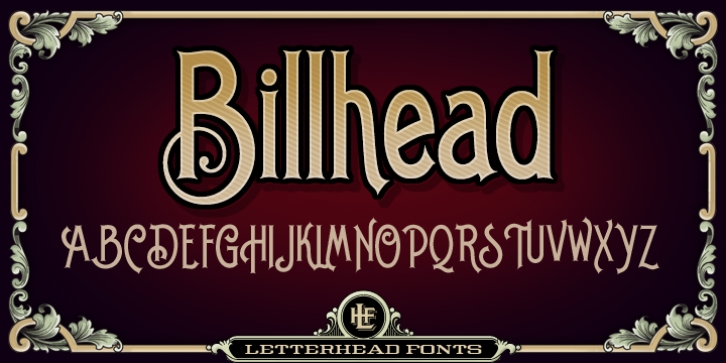
LHF Billhead was designed by Thomas Kennedy and published by Letterhead Fonts. LHF Billhead contains 3 styles and family package options.
Three extraordinary typefaces inspired by period style billheads and letterheads. Each typeface is uniquely different, yet they have also been designed to interchange with one another.
LHF Billhead 1890·
LHF Billhead 1900·